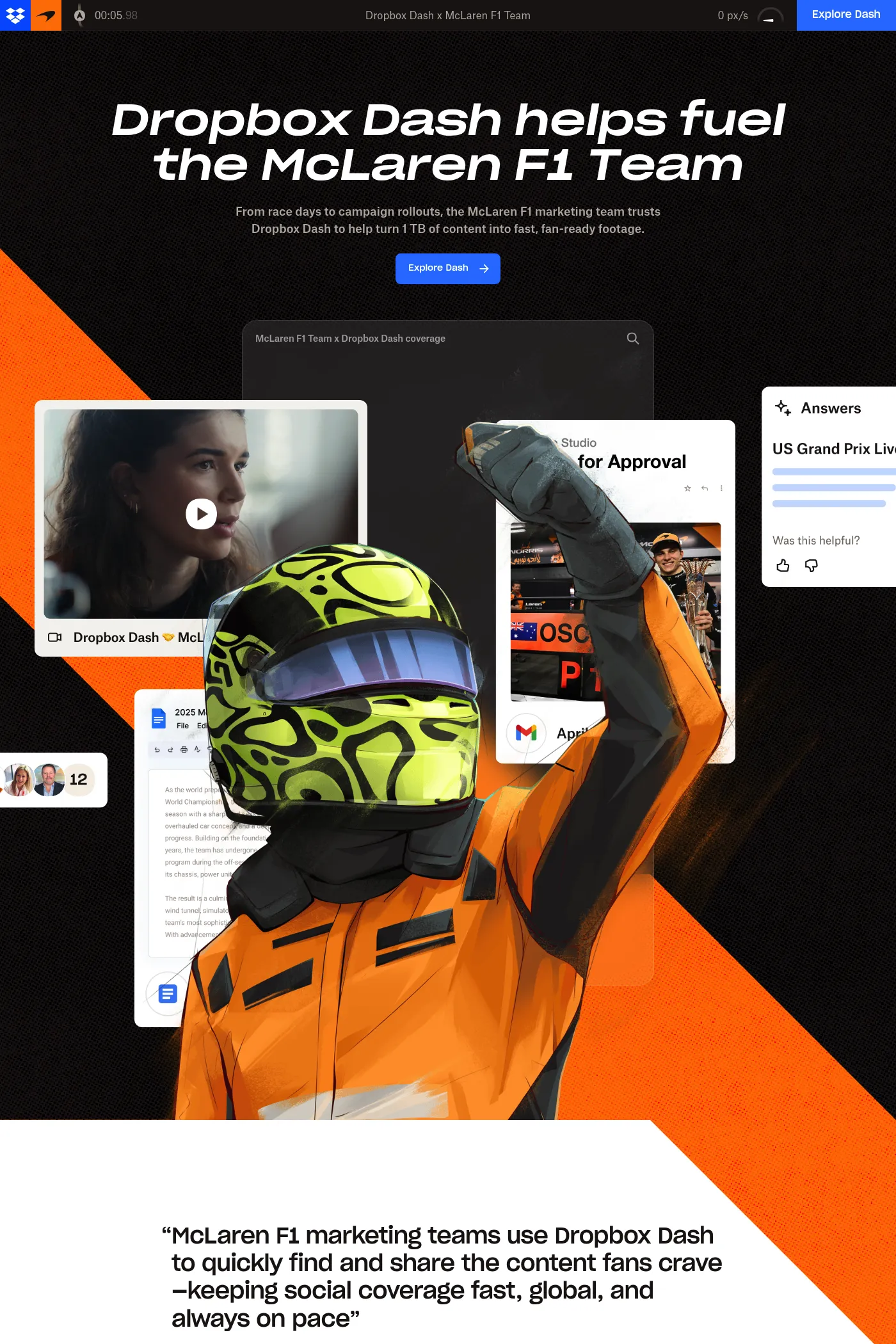
Atlas Grotesk is a sans-serif typeface from Commercial Type.
Atlas Grotesk is a clean and fresh sans serif with relatively long ascenders but short descenders. This allows the typeface to feel spacious and comfortable for extended reading even when set with tight leading.